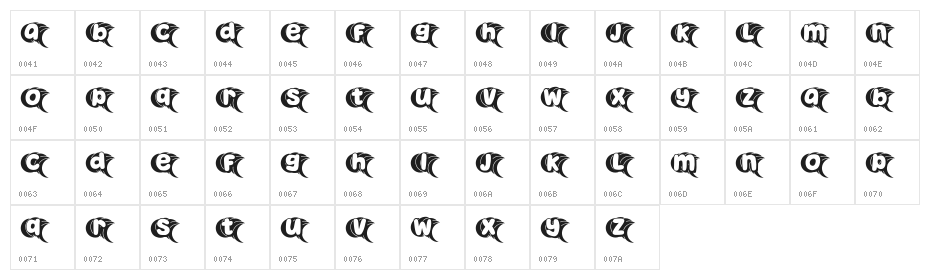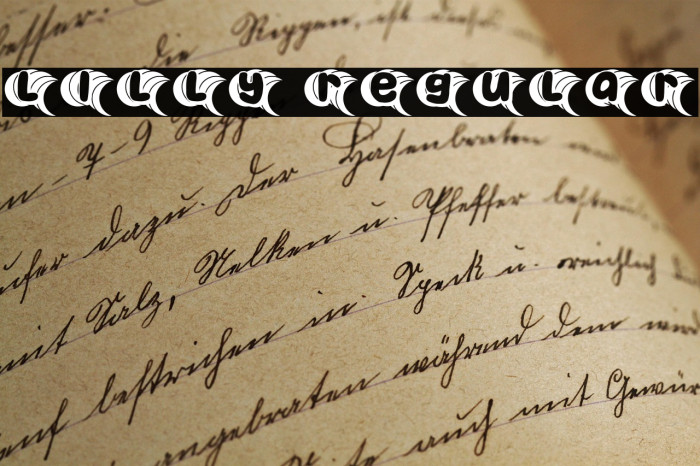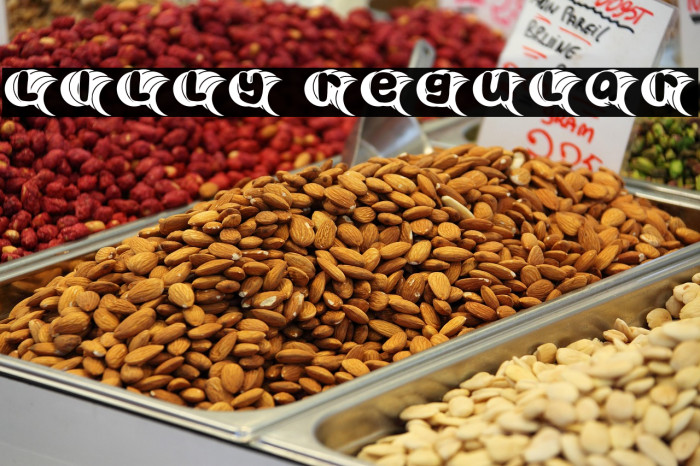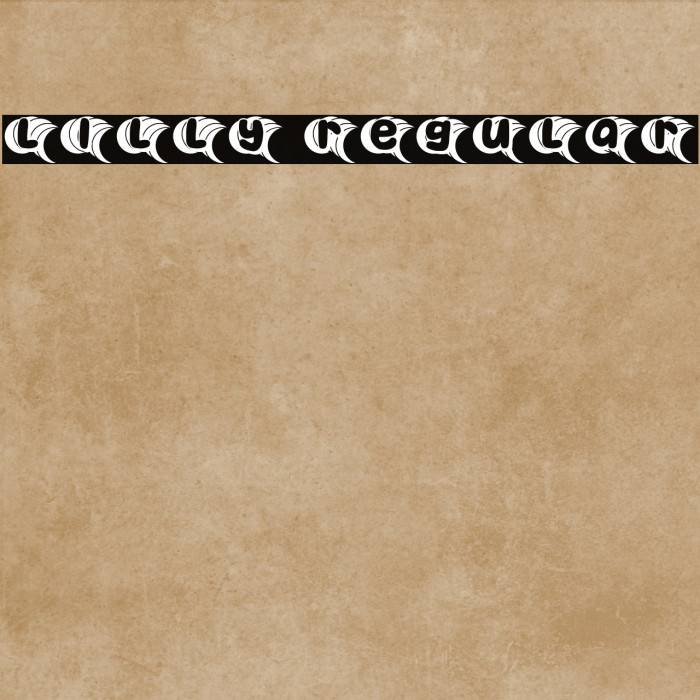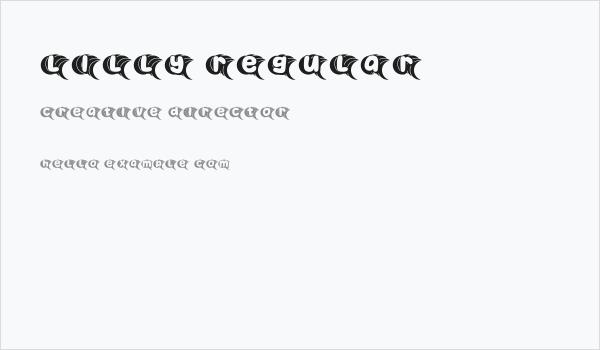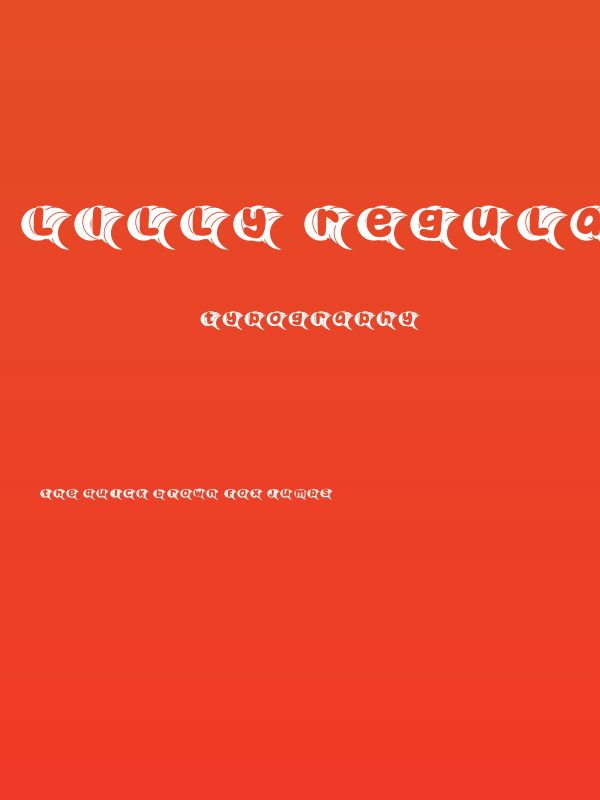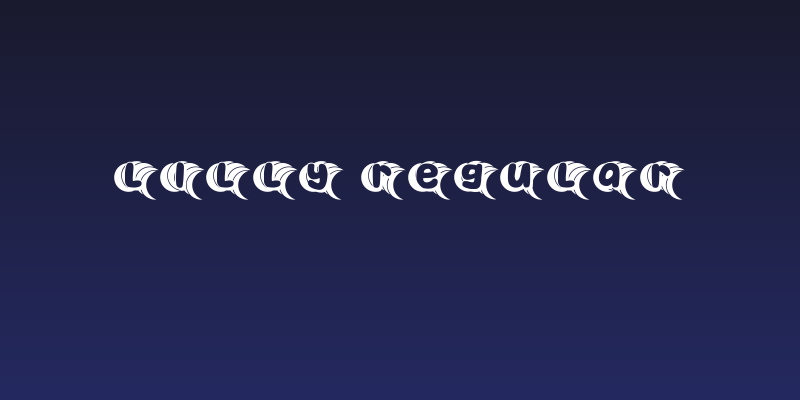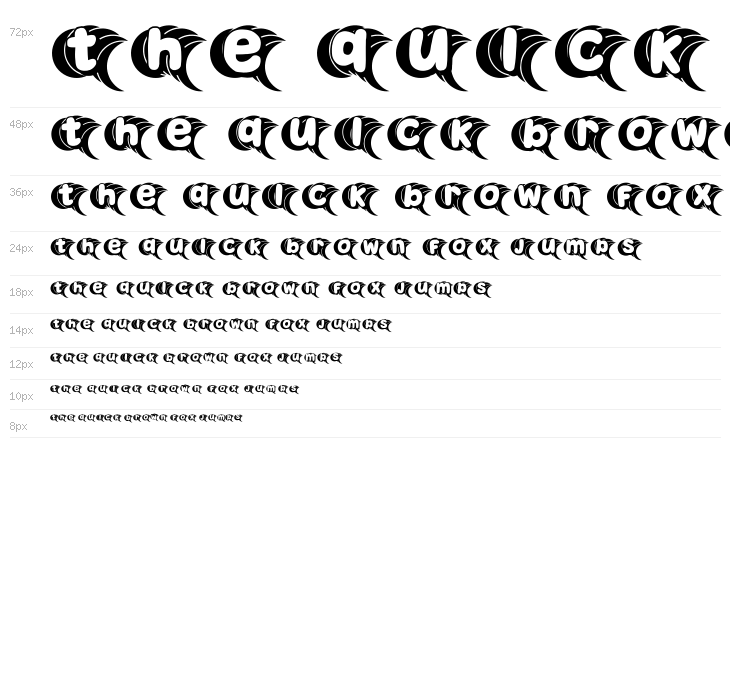
Lilly Regular Font
Lilly Regular Description
This font features a bold and decorative style with a unique flair. Each character is adorned with intricate, swirling embellishments that give it a whimsical and artistic appearance. The letters are bold and have a strong presence, making them stand out prominently. The design is consistent across both uppercase and lowercase letters, as well as numbers and special characters. The font's playful and ornate nature makes it suitable for creative and eye-catching designs.
| Proposed Projects | Ideal for creative projects such as posters, invitations, and branding that require a bold and artistic touch. |